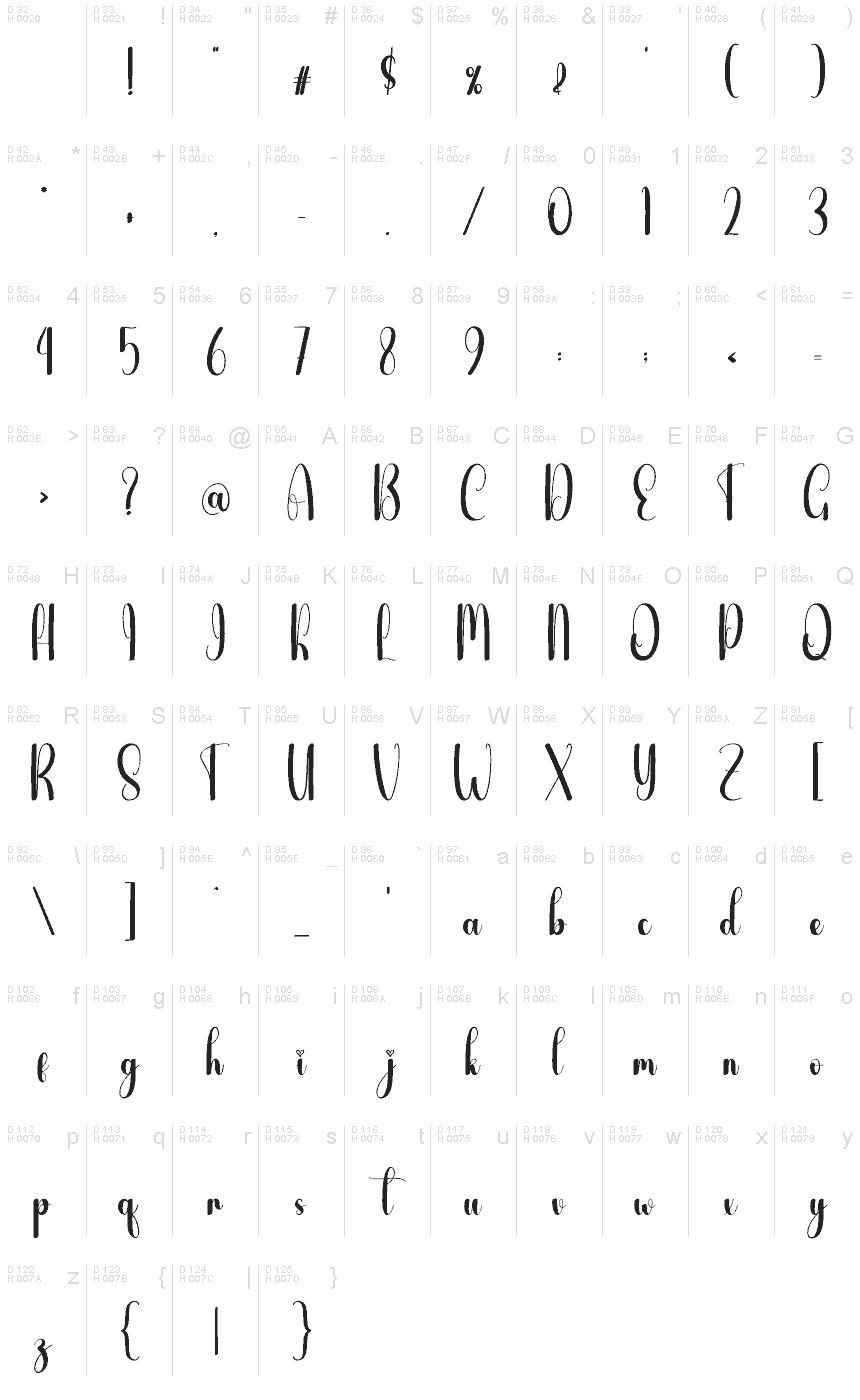
Coffee Night
Coffee Night font by Andi Moz is a free handwritten font with elegant and flowing letters. It holds a romantic touch with some calligraphic influence, and it beautifully connects the characters in every line. The condensed width of this font allows the text to be decorated with it without taking up much space.